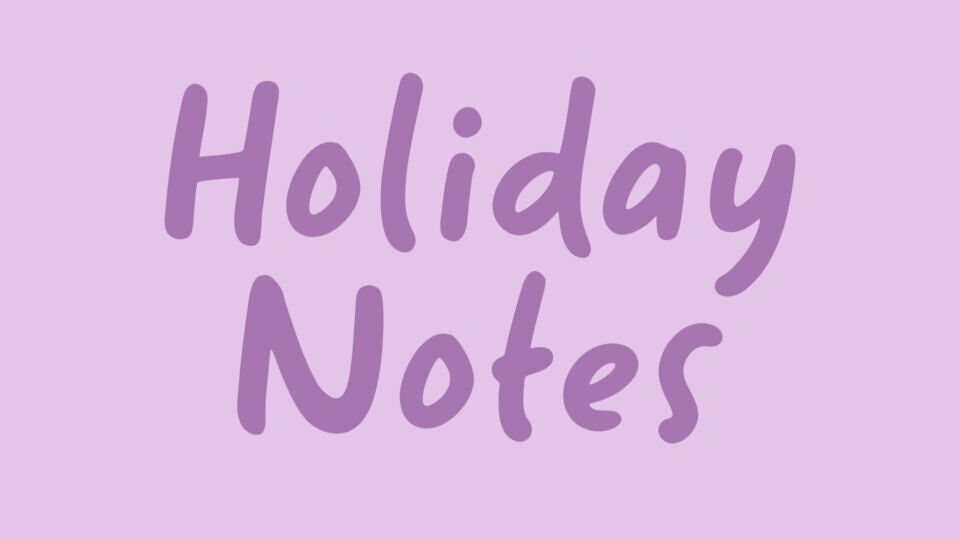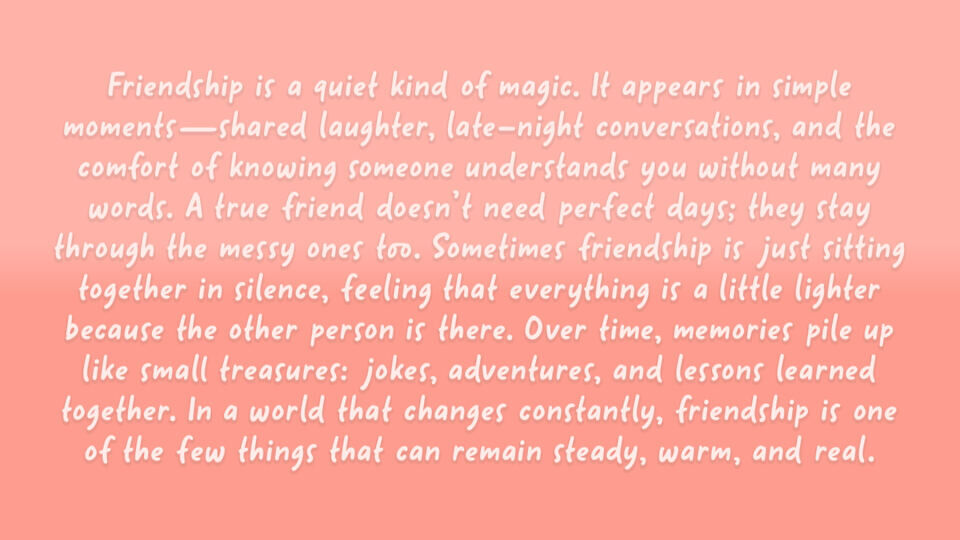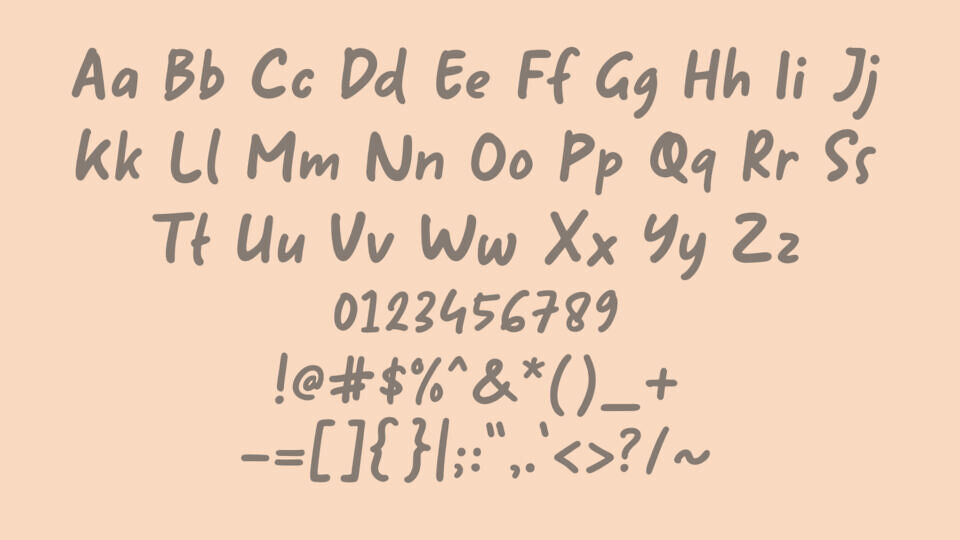
Holiday Notes is a playful handwritten font with a relaxed, casual feel inspired by personal notes and festive doodles. Its smooth, rounded strokes and slightly uneven letterforms create an authentic hand-drawn look that feels warm and friendly.
Perfect for holiday cards, seasonal graphics, planners, invitations, social media posts, and DIY crafts, this free font adds a cheerful and informal touch to any design. Holiday Notes works especially well for cozy, festive, and creative typography projects.